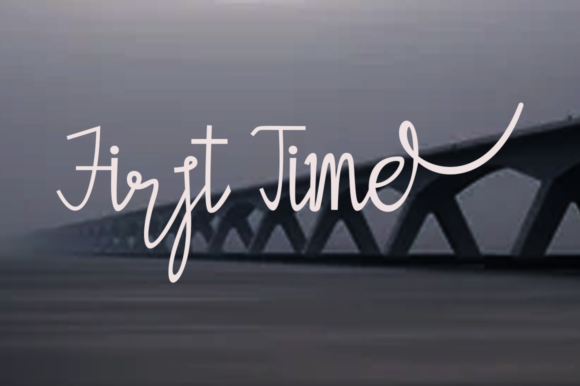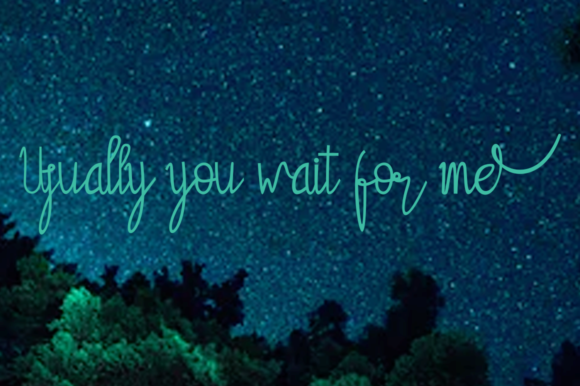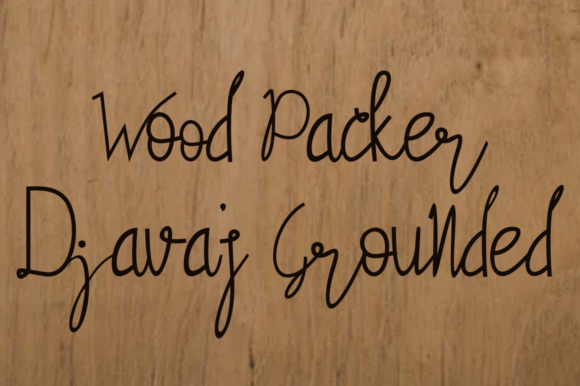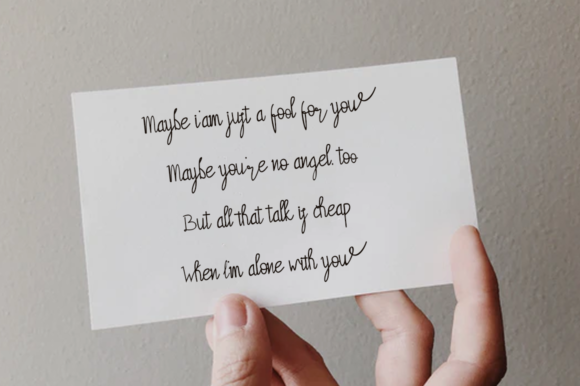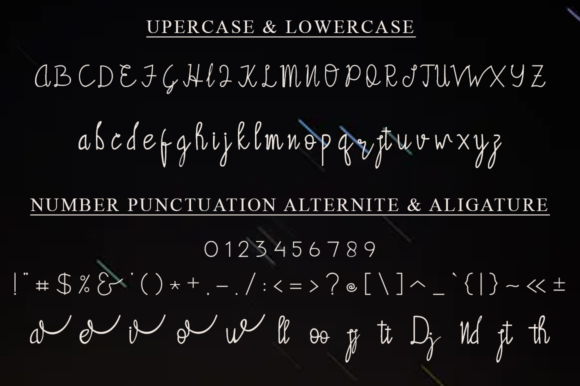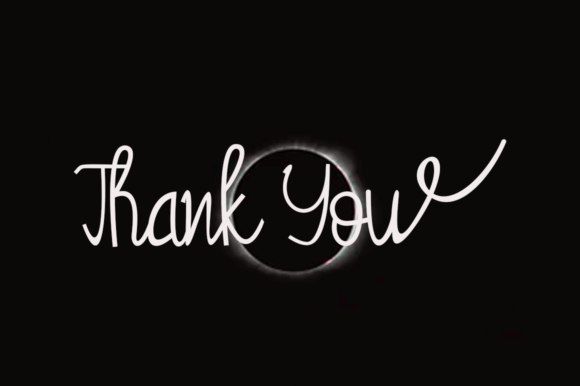
Introduction to Pasopati Font
Pasopati is a dainty and thin handwritten font.
Its distinct and well balanced letters make this font a masterpiece Fall in love with its incredibly versatile style and use it to create spectacular designs.
Key Features of Pasopati Font